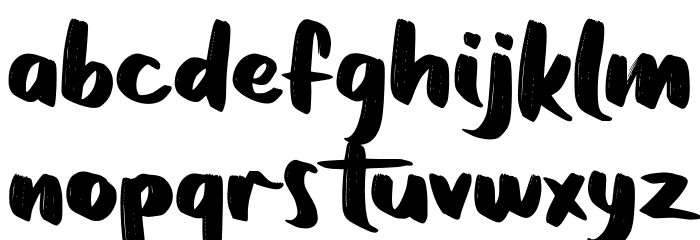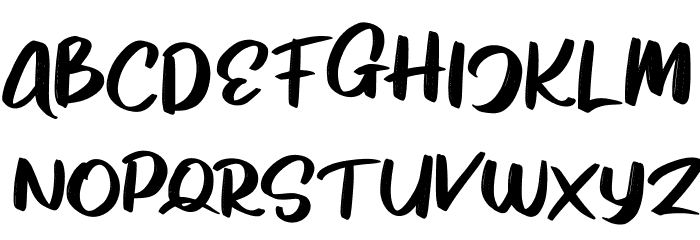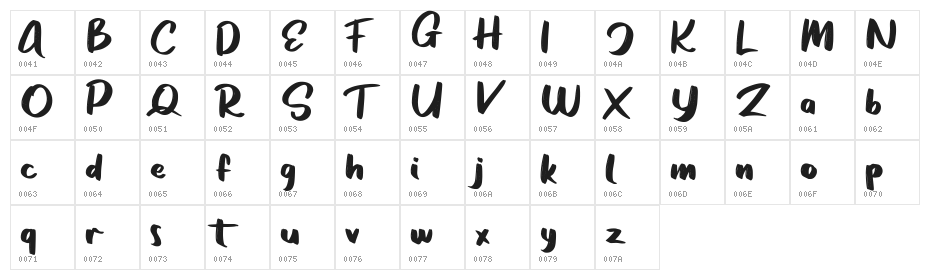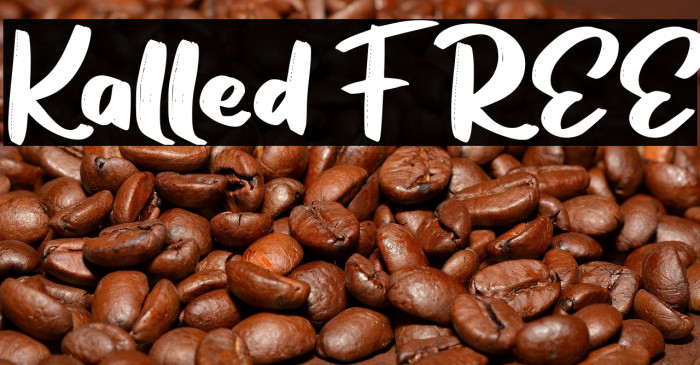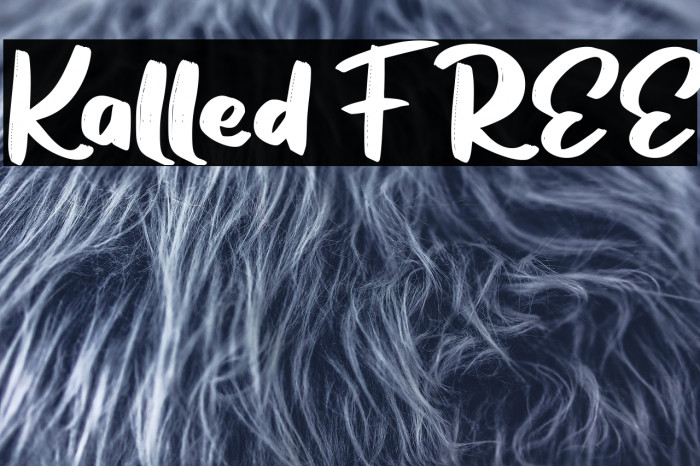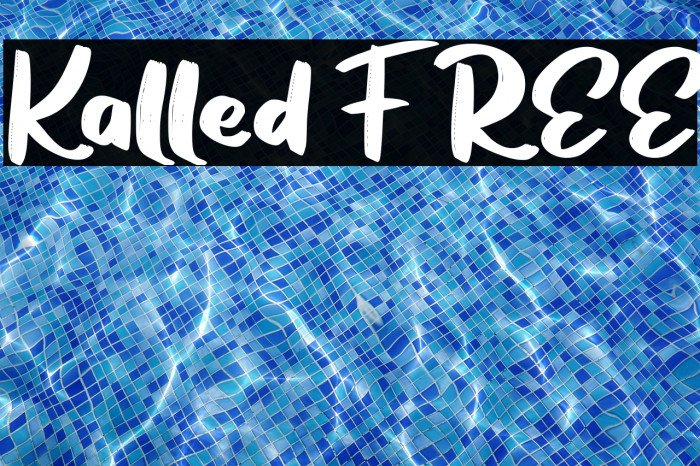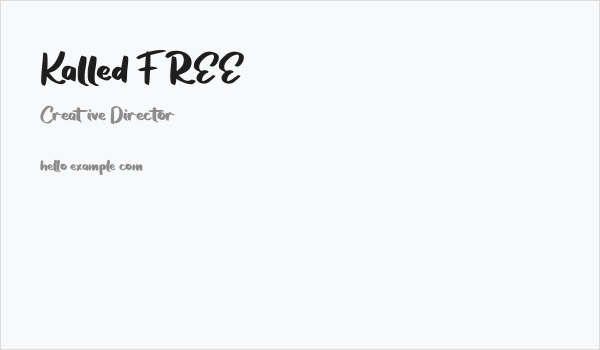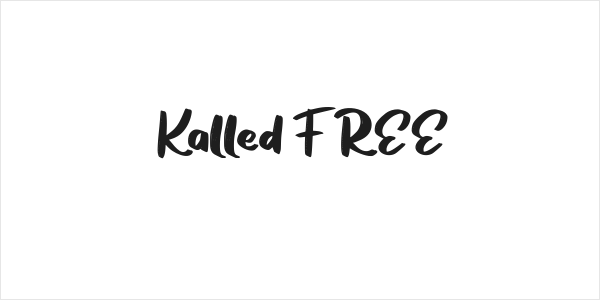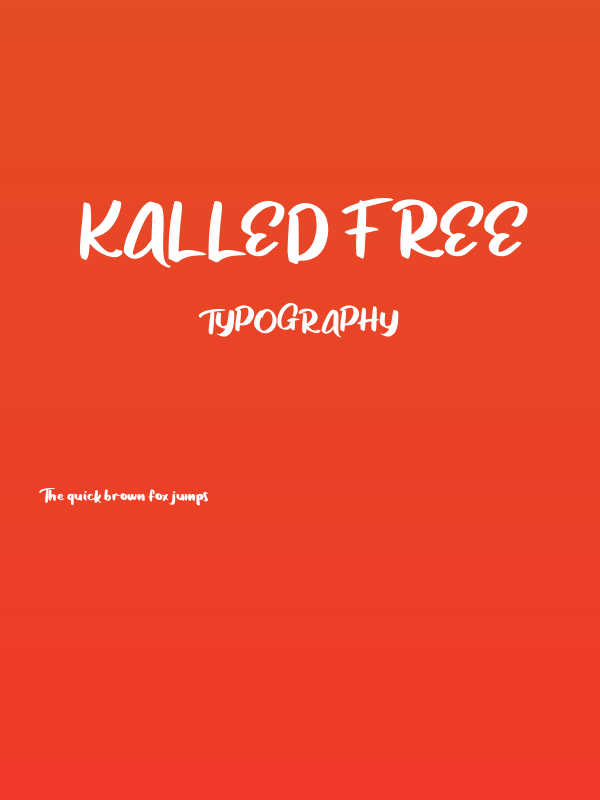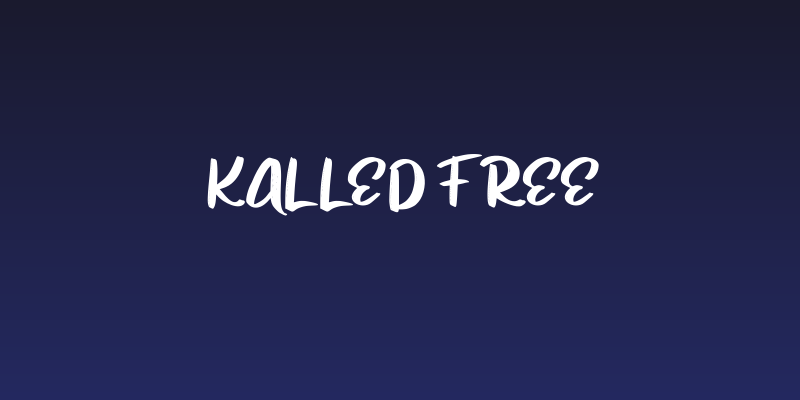
Kalled FREE Font
This font features a bold and expressive handwritten style, characterized by thick, brush-like strokes that convey a sense of energy and dynamism. The uppercase and lowercase letters maintain a consistent flow, with slightly irregular edges that add to its organic and authentic appearance. The font's playful nature is enhanced by its varied stroke widths, which create a lively rhythm across the text. The characters are well-spaced, ensuring readability while maintaining a casual and informal tone. This style is ideal for projects that require a personal touch or a creative flair.
A bold, expressive handwritten font with brush-like strokes and dynamic character.